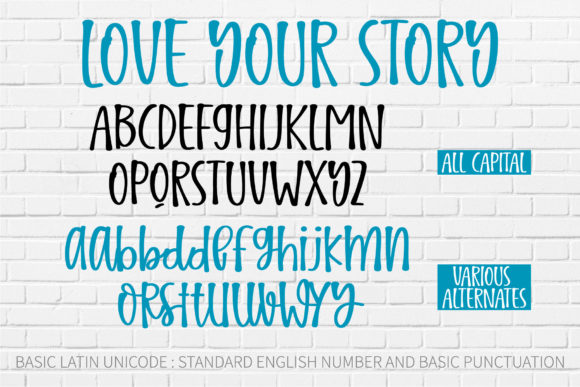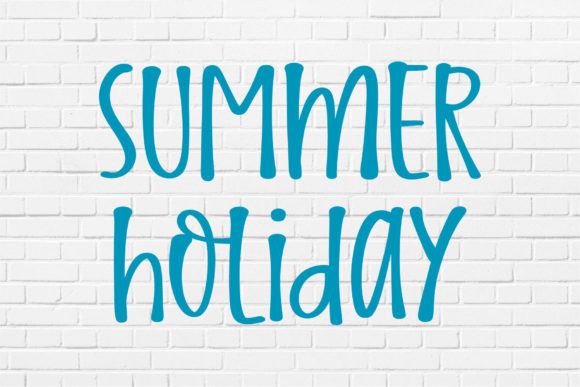
Love Your Story Font
db-ku.com - Script & Handwritten -- Love Your Story is a cool, friendly, and informal handwritten font, that can be used for all chalkboard quotes or teaching material! Its authentic look and feel will add a personal and realistic feel to your designs.